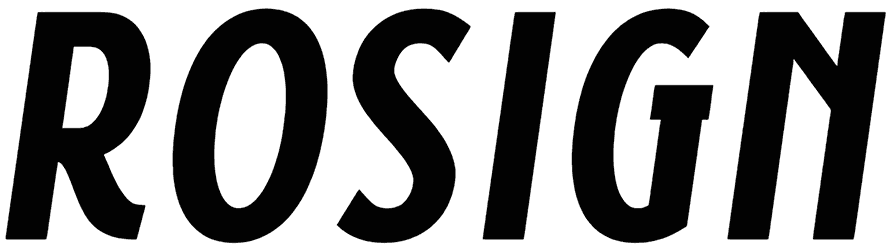
Rosign Font
Keep your artworks neat and consistently amazing through the modern outward of this sans serif font. The approachable and friendly letterforms of Rosign can be utilized in headers, websites, main text, and other needs. C…
Keep your artworks neat and consistently amazing through the modern outward of this sans serif font. The approachable and friendly letterforms of Rosign can be utilized in headers, websites, main text, and other needs. Considering the lowercase letters aren’t included while it’s in the lead. Try this California font and present it in real life.